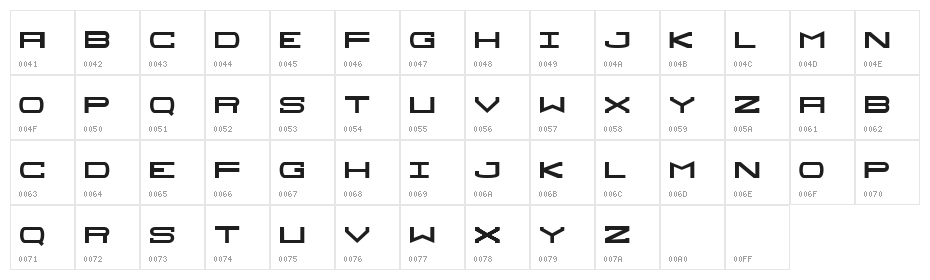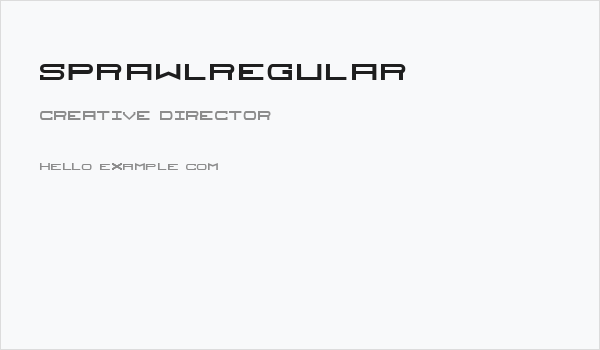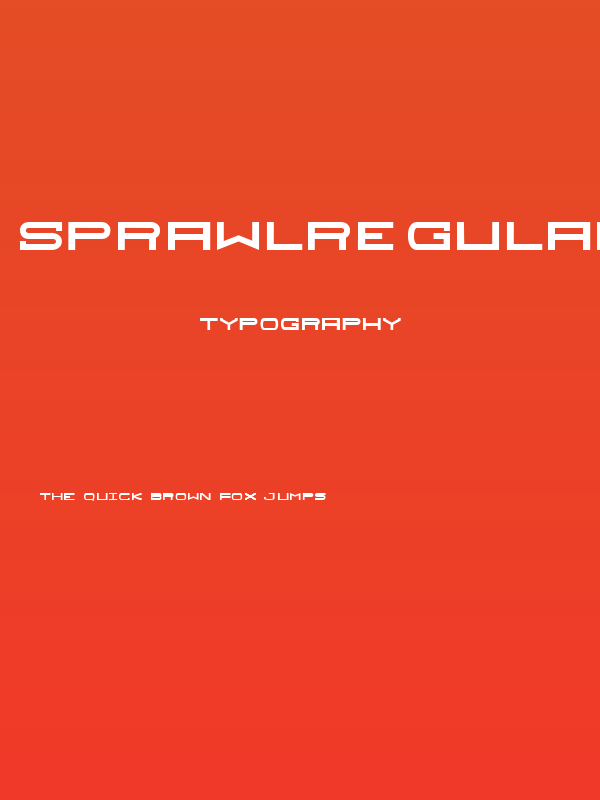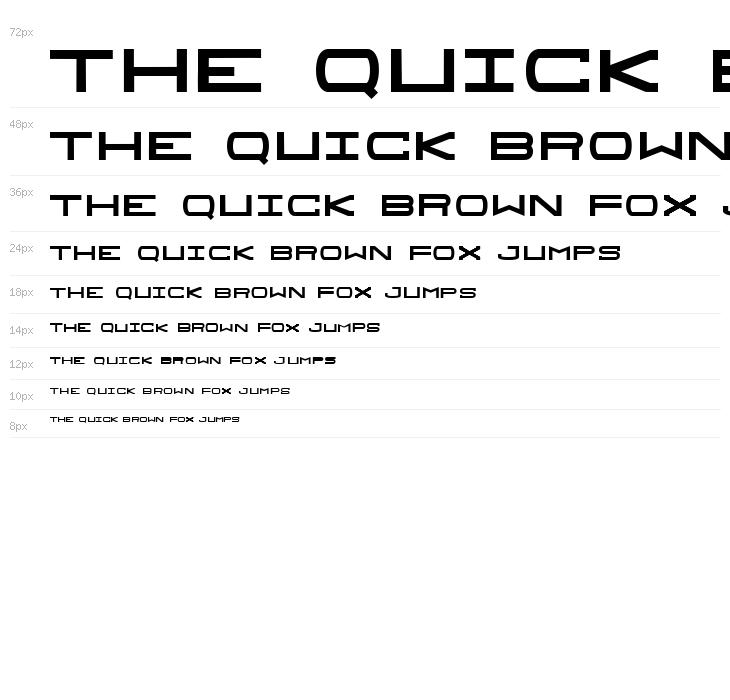
SprawlRegular Font
SprawlRegular Description
This font features a futuristic and geometric design, characterized by its sharp angles and clean lines. The uppercase letters are uniform in height, creating a cohesive and structured appearance. The font's design is minimalistic yet bold, making it suitable for modern and tech-oriented projects. Its distinct style is achieved through the use of consistent stroke widths and angular shapes, giving it a unique and contemporary look. The characters are evenly spaced, ensuring readability while maintaining a sleek and professional aesthetic.
Tannon Behunin
Overall StyleFuturistic
Use CaseLogos, Headlines, Digital Interfaces
Proposed ProjectsIdeal for tech branding, sci-fi themed designs, modern logos, and digital interfaces.
Tannon Behunin